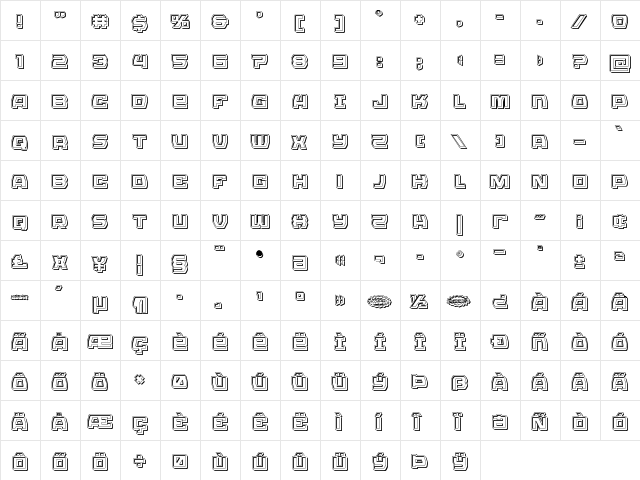
Olympic Carrier Engraved Regular
Design Context for Olympic Carrier Engraved Typeface
Olympic Carrier Engraved is built around its visual character rather than neutral utility — its distinctive forms are designed to make an impression at display sizes.
Font Pairing: Pair with a clean neutral sans-serif for body copy to let Olympic Carrier Engraved's character lead without overwhelming the composition.
Pro Tip: Use Olympic Carrier Engraved exclusively at display sizes — it was designed to be seen, not read at length. Let a neutral companion handle body copy.